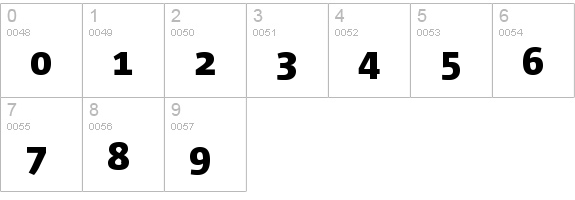
Corpid Heavy is a heavy, high-impact variant in the Corpid typeface family \xE2\x80\x94 well suited to high-impact headlines, posters, and display advertising.
Corpid Heavy font is a bold and commanding typeface that exudes strength and modernity. Its thick, robust letterforms make a statement on any design project, from posters to logos to packaging. The geometric shapes and sharp angles of Corpid Heavy give it a sleek and professional look that is perfect for conveying a sense of confidence and authority. What makes Corpid Heavy even more appealing is that it is freely available to download at FontsMarket.com. This means you can easily access this powerful font to enhance your creative projects without any cost. Whether you are a graphic designer, marketer, or content creator, Corpid Heavy is a valuable addition to your font library. Stand out from the crowd and make a bold impact with Corpid Heavy font today!